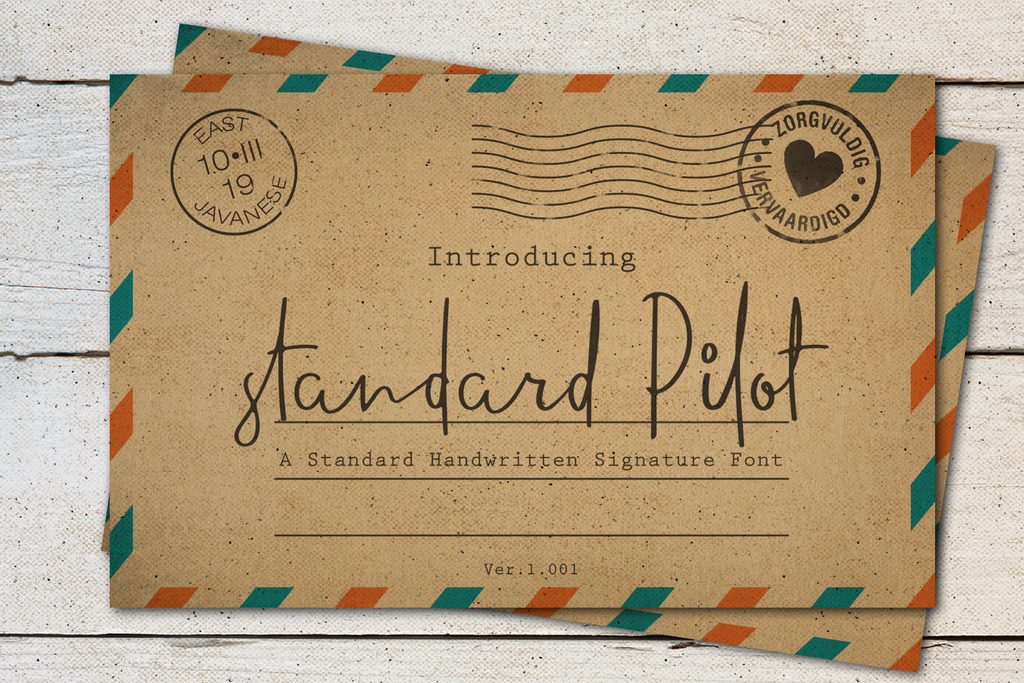
signature fonts app
Signature fonts app. To choose the best font for your email signature you need to look for one of the safe fonts. Signature fonts mimic the distinctive writing of a persons actual signature. In app or in your web browser find the fonts you need from thousands of options. The signature generator takes your name and transforms it into something special with an exciting typeface.
Simply type your name into the signature generator and see it coming alive in an eye catching font. From elegant to edgy theres a font to suit your name and personality. Under edit signature compose your signatureyou can change fonts font colors and sizes as well as text alignment. 49613 free fonts in 24473 families.
Whether you like your typeface to be pretty or quirky theres a.